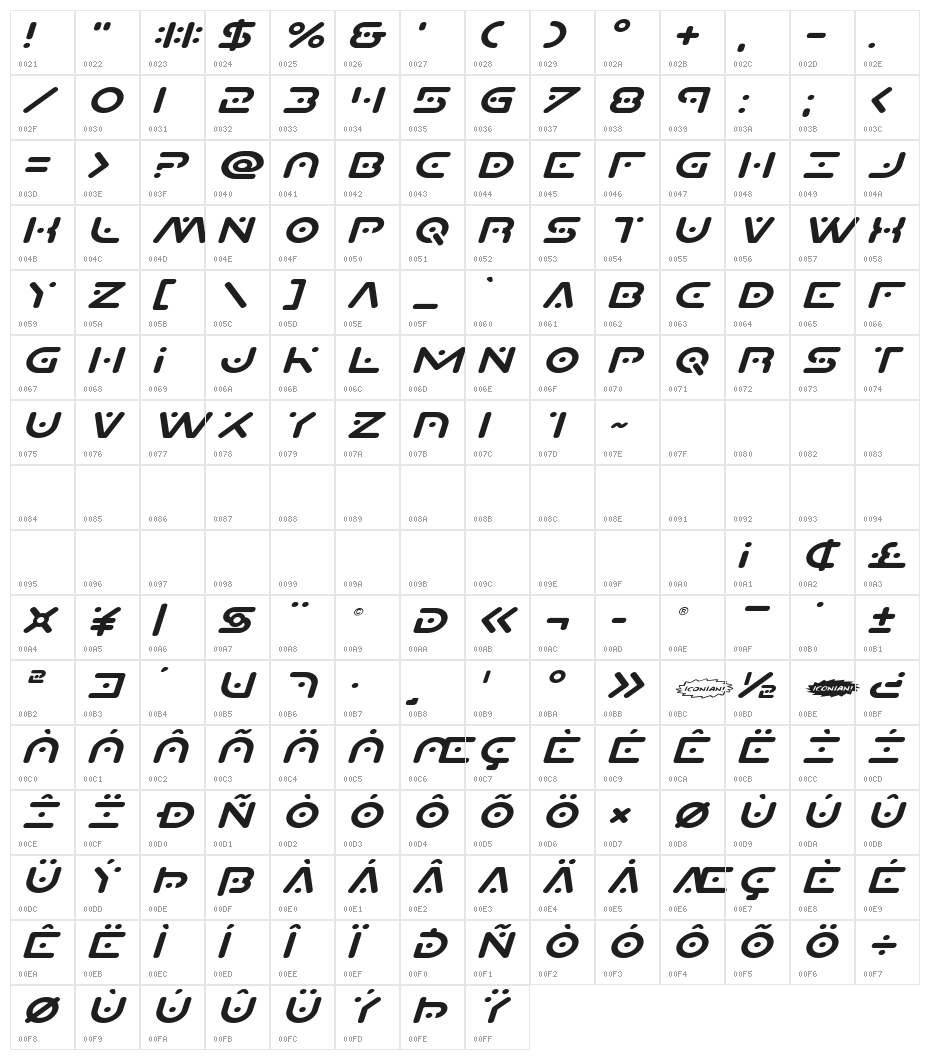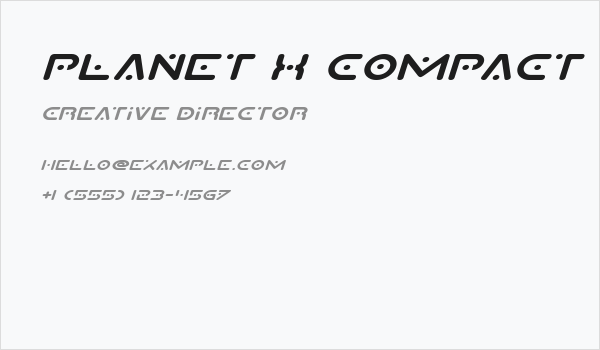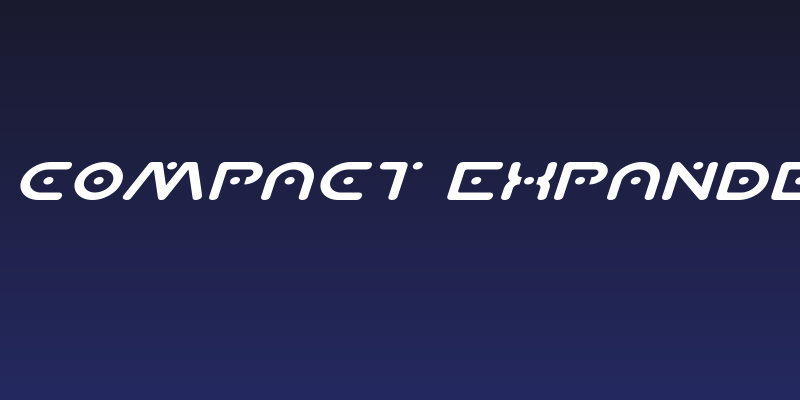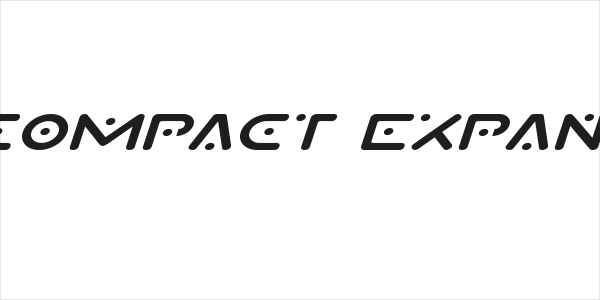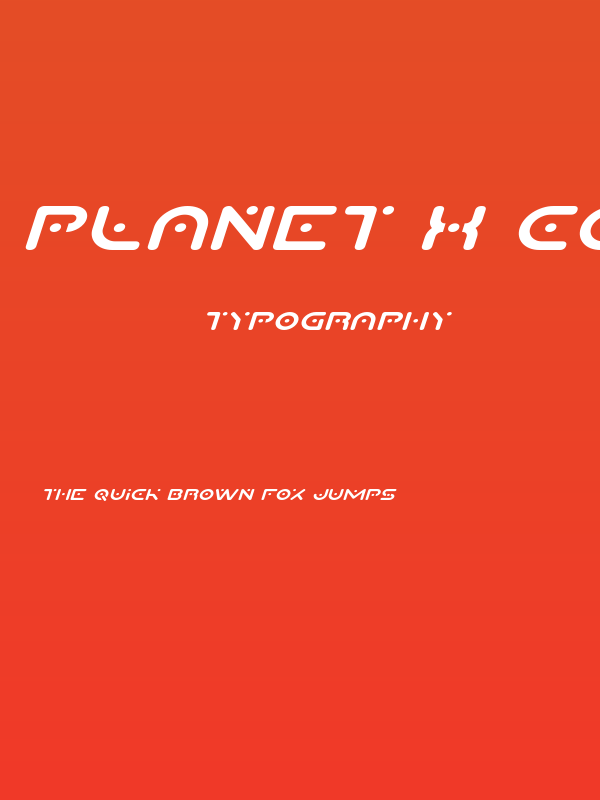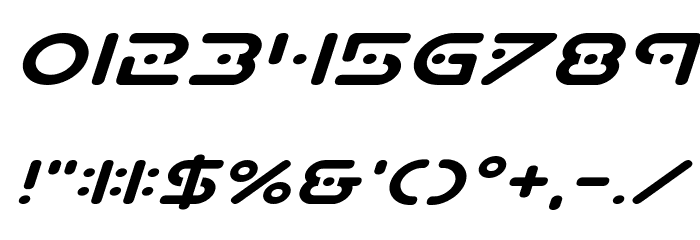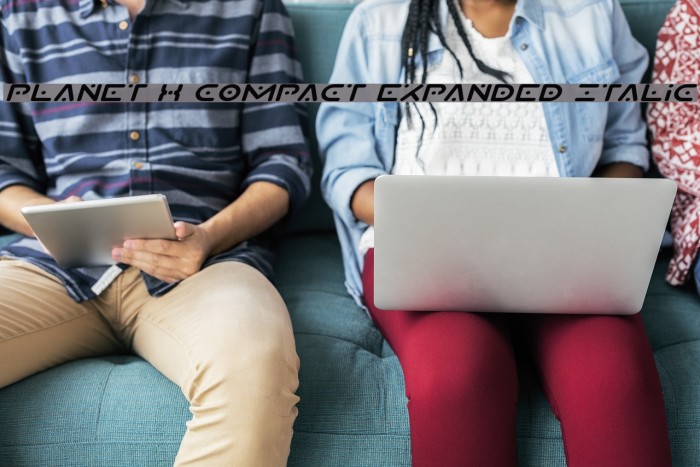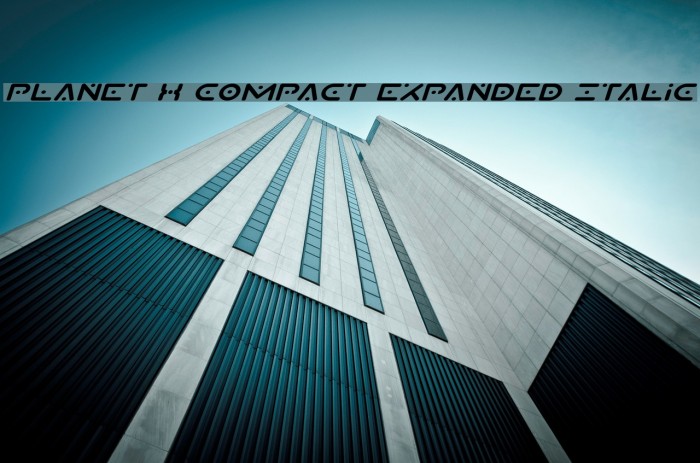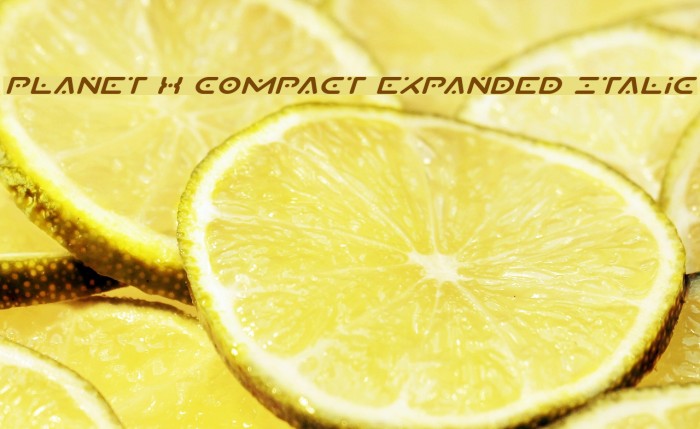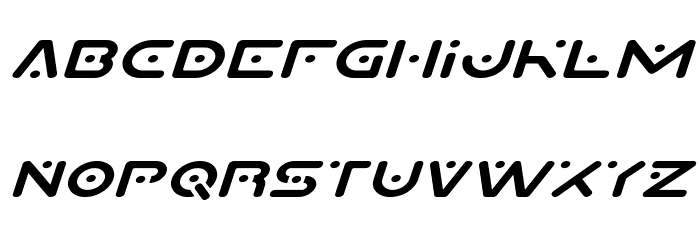
Planet X Compact Expanded Italic Font
Planet X Compact Expanded Italic Description
This font features a futuristic and sleek design, characterized by its geometric shapes and smooth curves. The letters are slightly italicized, giving a sense of motion and dynamism. The use of rounded edges and consistent stroke thickness throughout the characters adds to its modern appeal. The font includes both uppercase and lowercase letters, numbers, and a variety of special characters, making it versatile for different design needs. Its unique style is reminiscent of sci-fi themes, making it ideal for projects that require a cutting-edge and innovative look.
| Proposed Projects | Ideal for sci-fi themed designs, tech branding, video game titles, and futuristic posters. |